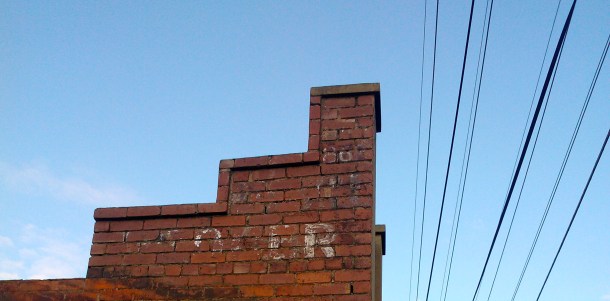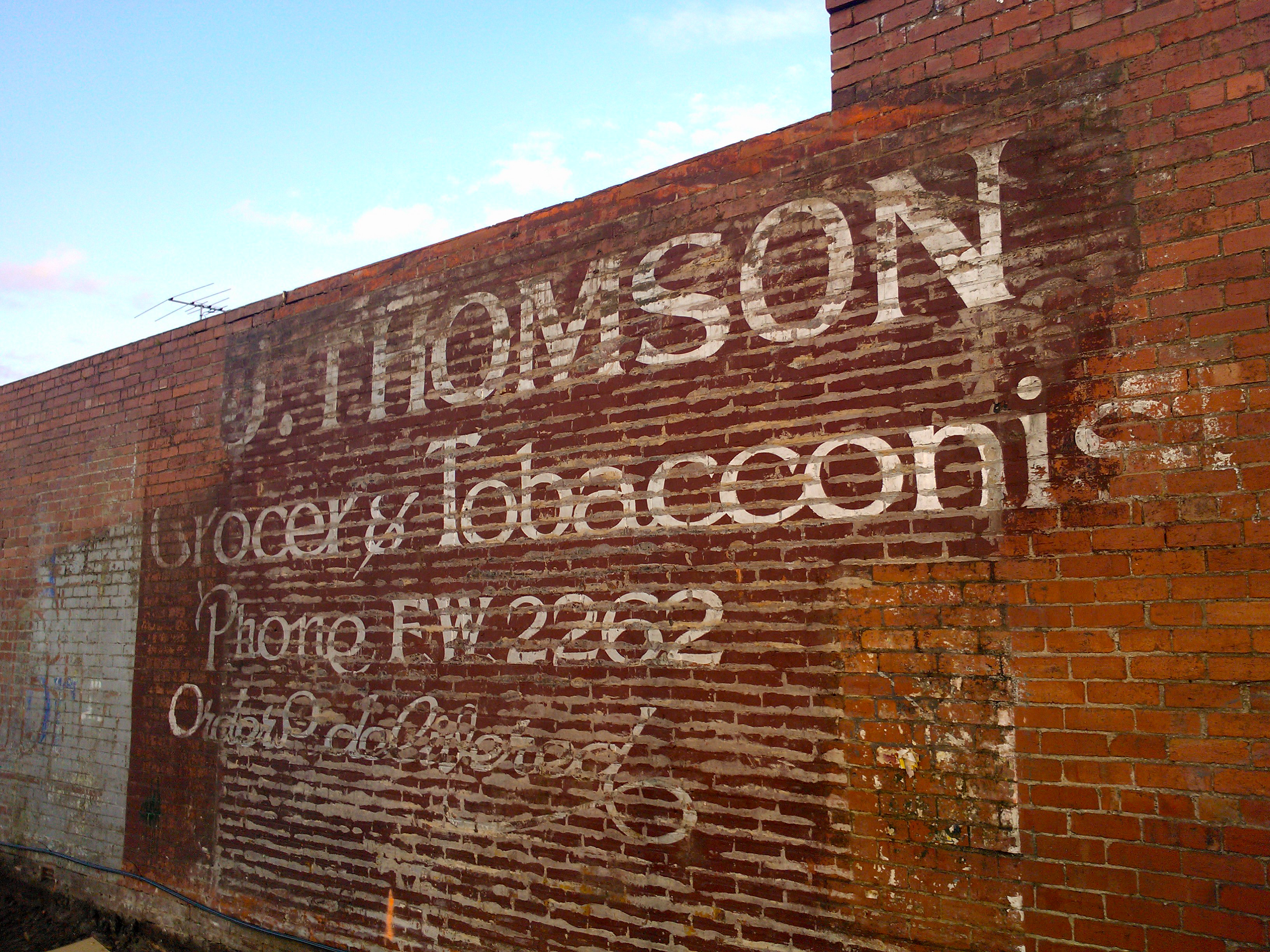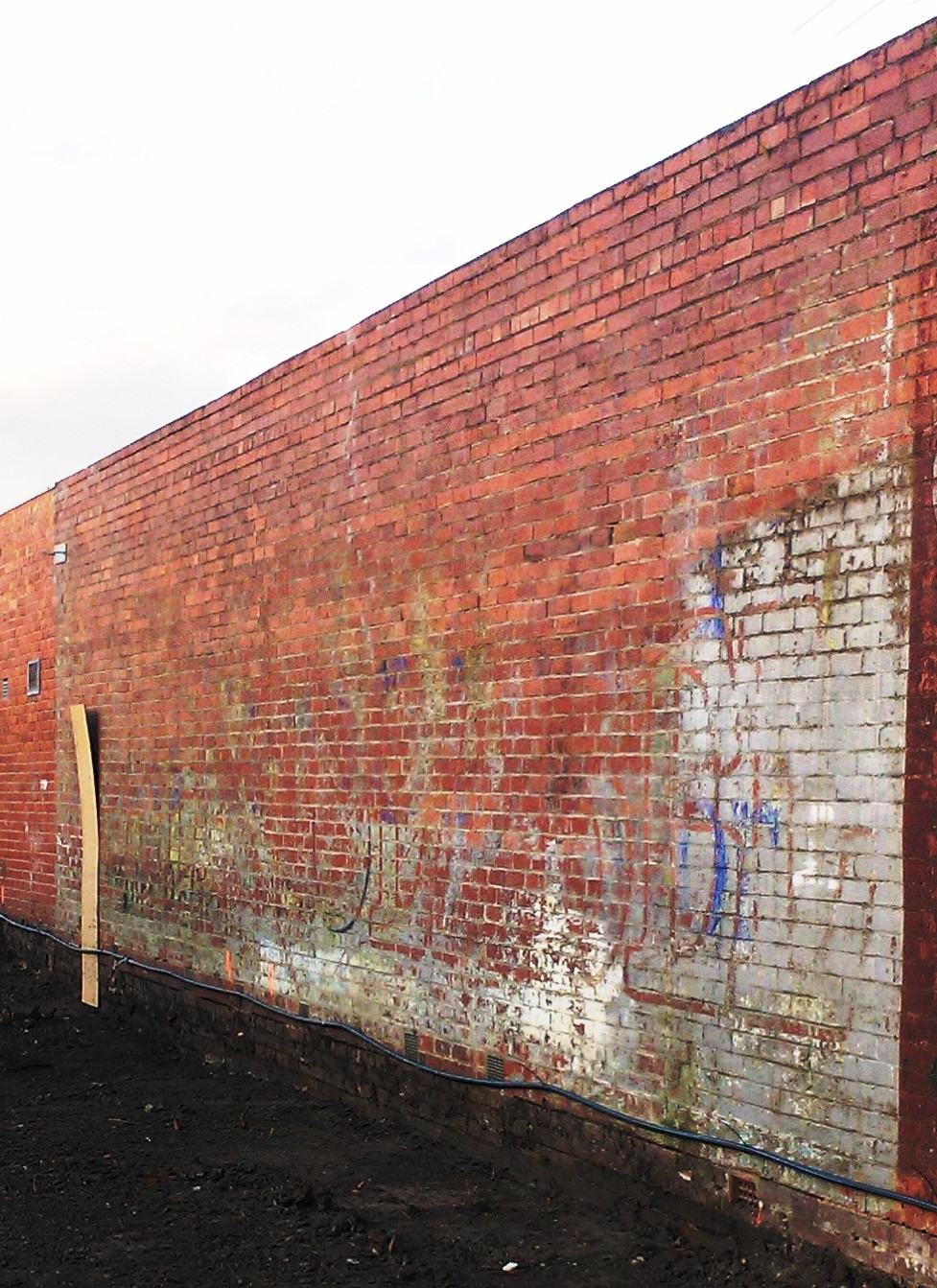
J. Thomson Grocer & Tobacconist
Reynard St, Coburg.
This was the one that started it all. Solid gold uncovered by some unknowing developers. But, the developers giveth and the developers taketh away. Pretty soon there’s going to be some ugly-arse townhouse thrown right up in front of this piece, to be lost again until the next developer wants to get a piece.
FUN FACT: According to the friend who lives here, there’s a shed out the back which is labelled on the plans as a “potato shed.”
This sign is back along the wall from the J. Thomson sign. My best guess is “Blue Label”, which was a brand from Bushells (which you can also make out in the Bushells Tea post.)
Above is a shot of the top corner of the building. This bit had been exposed the whole time. You can see what sort of condition that rest would’ve been in had it been uncovered to the elements.
This is the street view. I can’t for the life of me work out what any of that might say, (Bruns 862 is all I can see.) Also, going by the type, it looks like it is the same signage as the “top corner” photo directly above, but different to the big one on the side. May well be two different signs for two different owners.
3. This place is opposite where my kids go to school, and I was just as excited as you to see the sign revealed. My online archive of signwriting documents actually has some jobs for Thomson’s place – a repaint of a White Crow tomato sauce sign from 1952 and a repaint from 1955:
…and another just up the road: